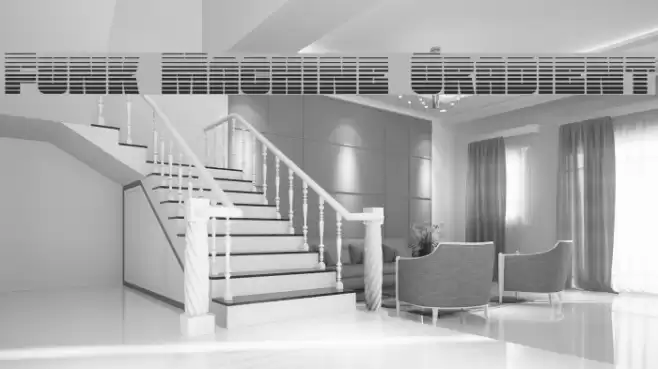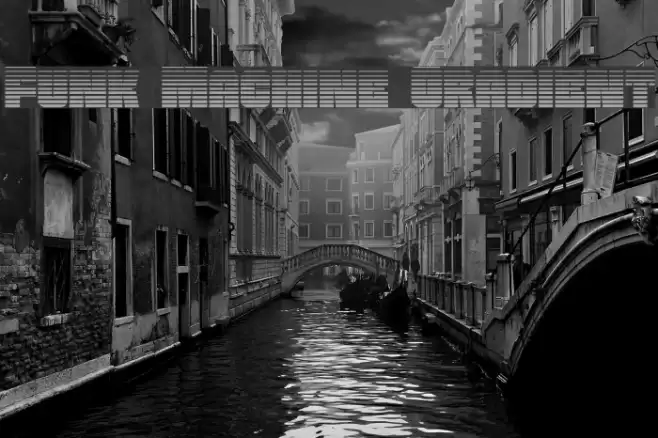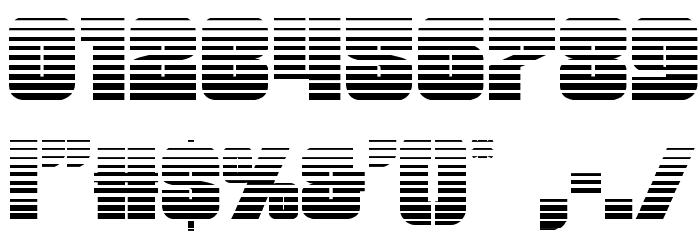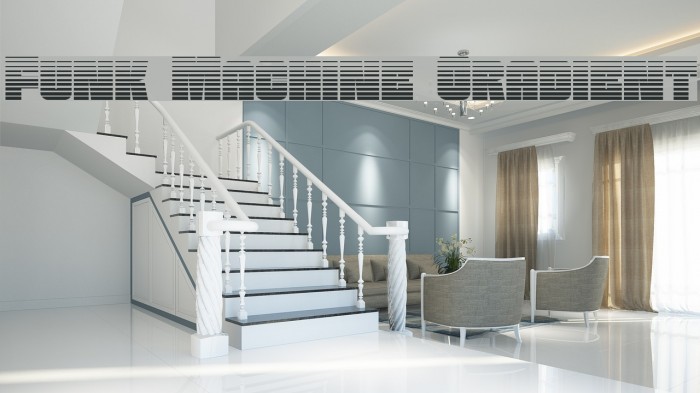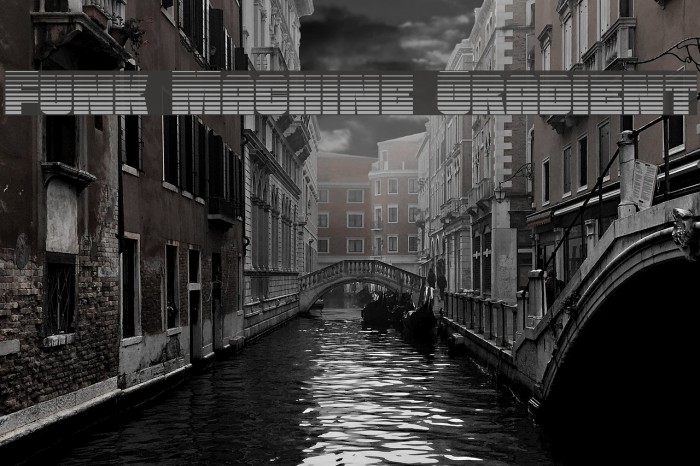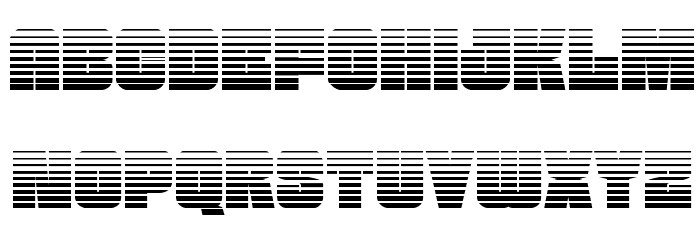
Funk Machine Gradient Font
Funk Machine Gradient Description
This font features a bold, geometric design with a distinctive striped pattern that creates a sense of movement and rhythm. The characters are constructed with horizontal lines that vary in thickness, giving the font a dynamic and modern appearance. The uppercase and lowercase letters maintain a consistent style, with sharp angles and clean edges. The numbers and special characters are designed to match the overall aesthetic, ensuring a cohesive look across all elements. This font is ideal for projects that require a bold statement and a contemporary feel.
A bold, geometric font with a dynamic striped pattern from Fancy fonts.
- Proposed Projects: Ideal for music album covers, event posters, modern branding, and digital artwork.